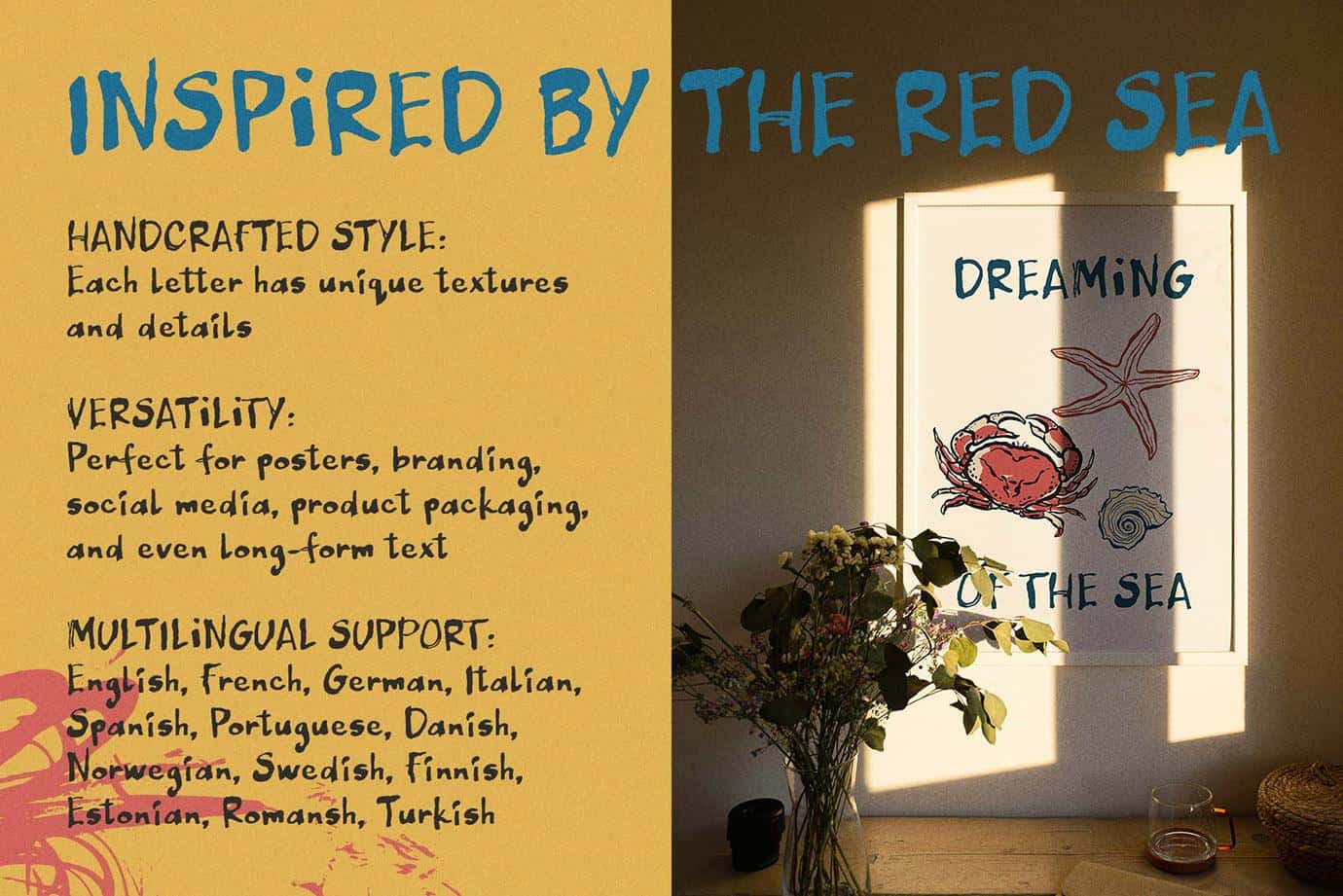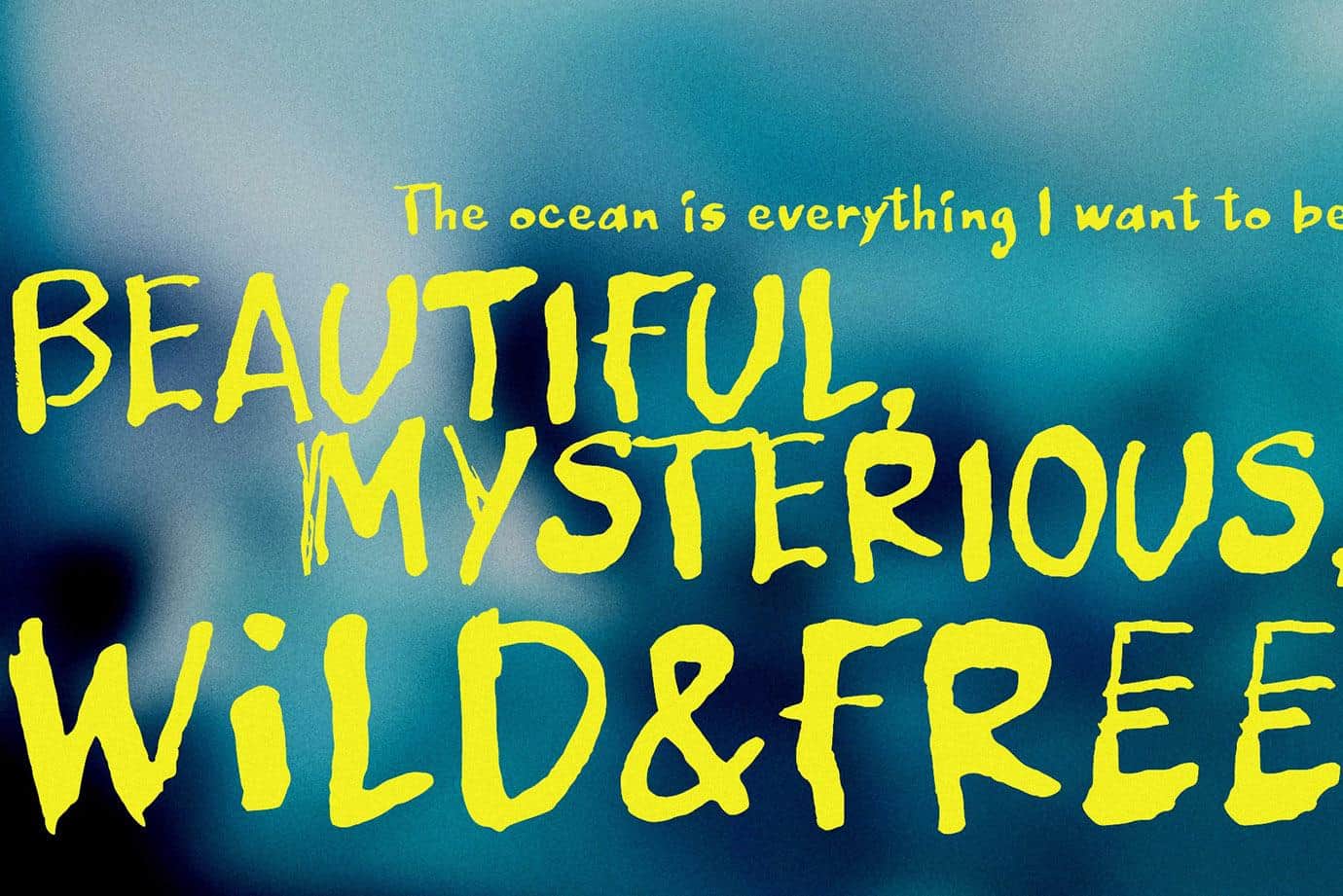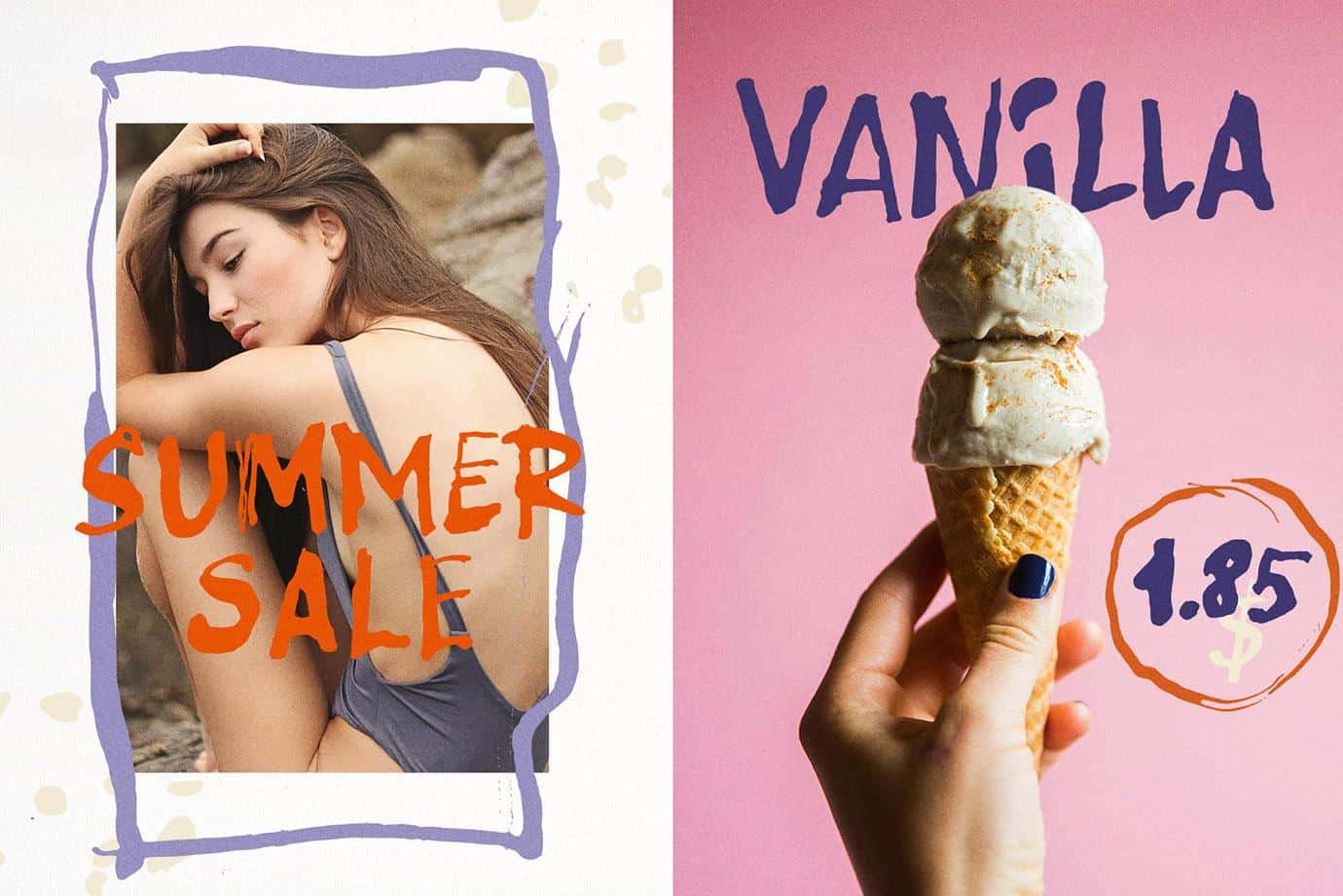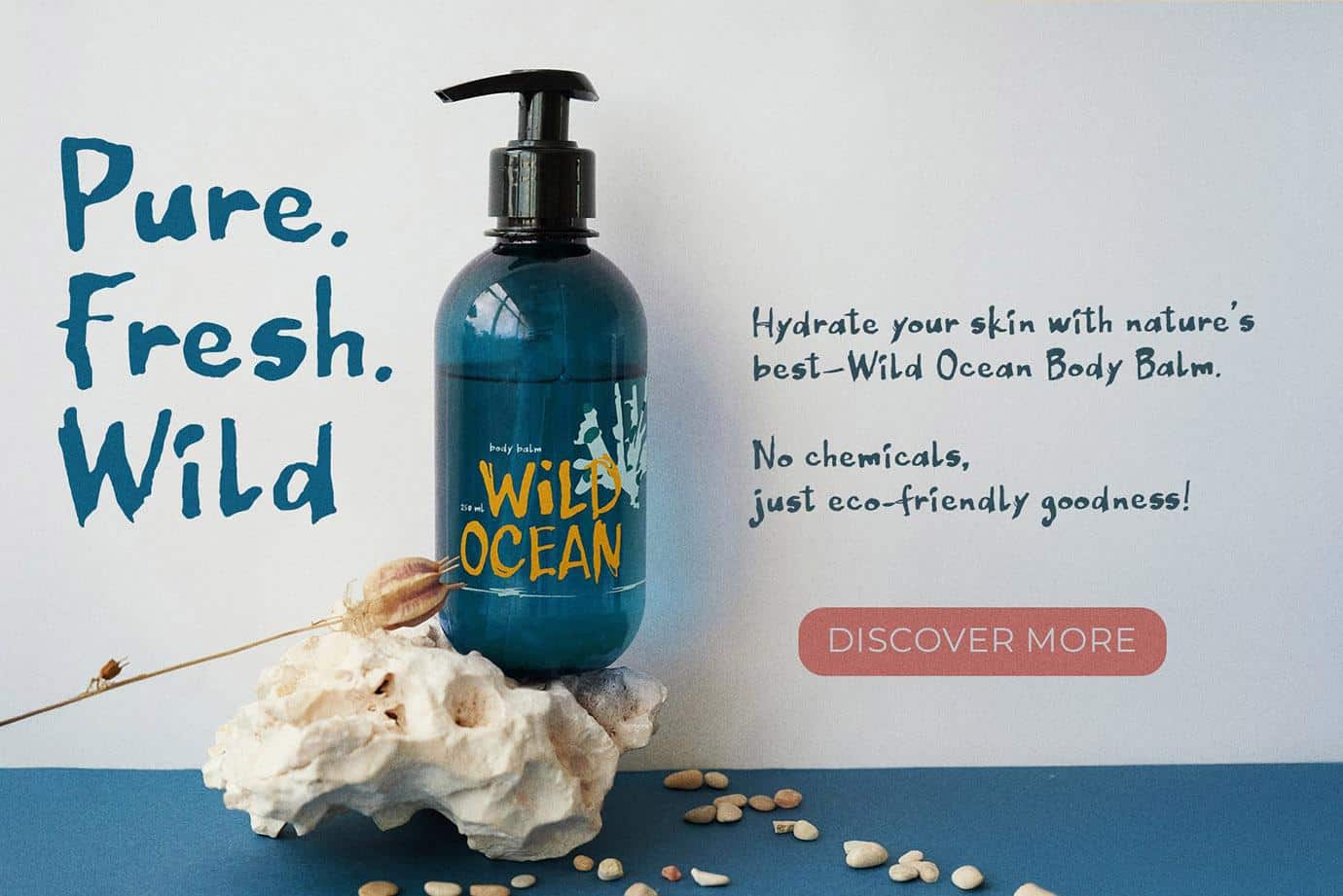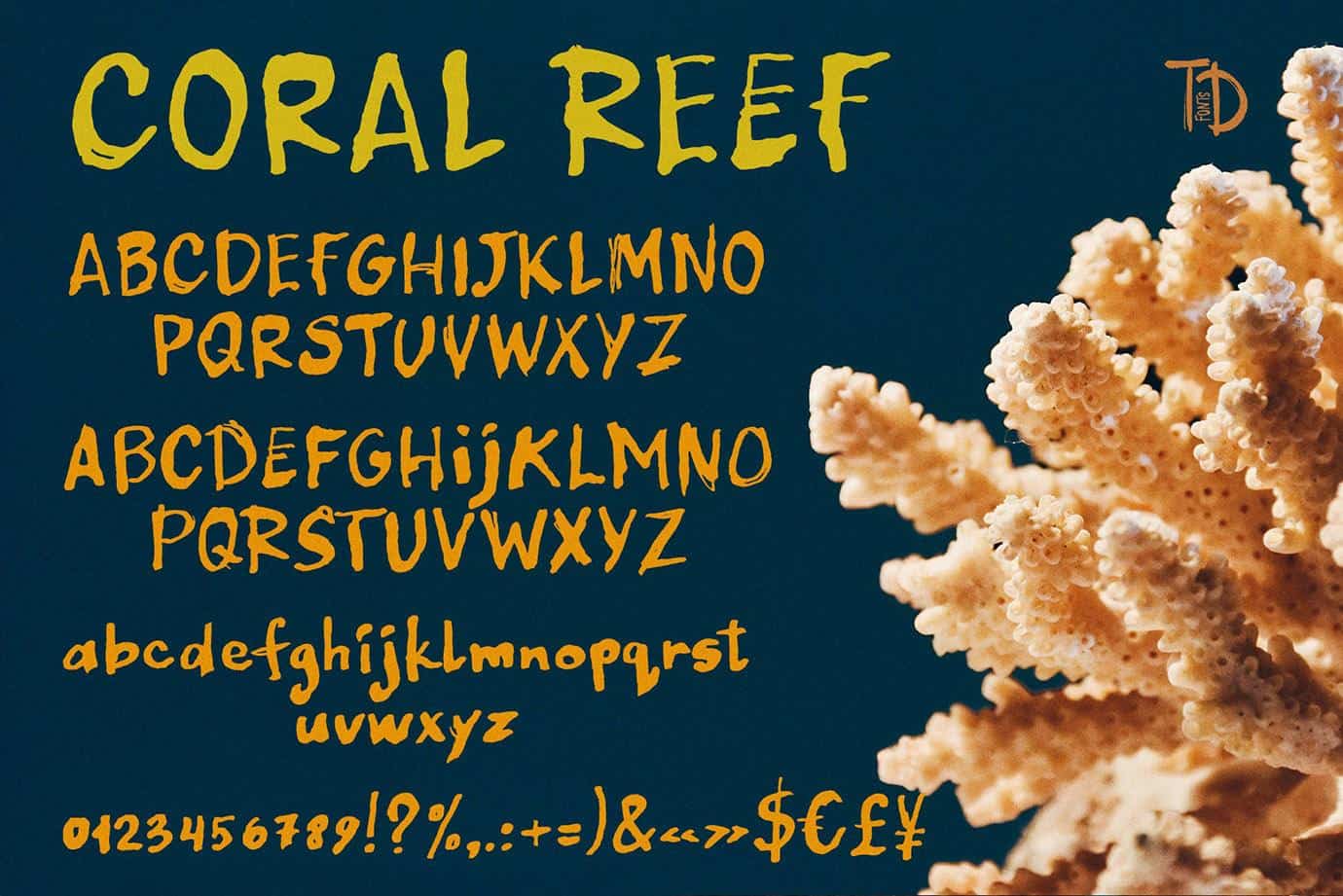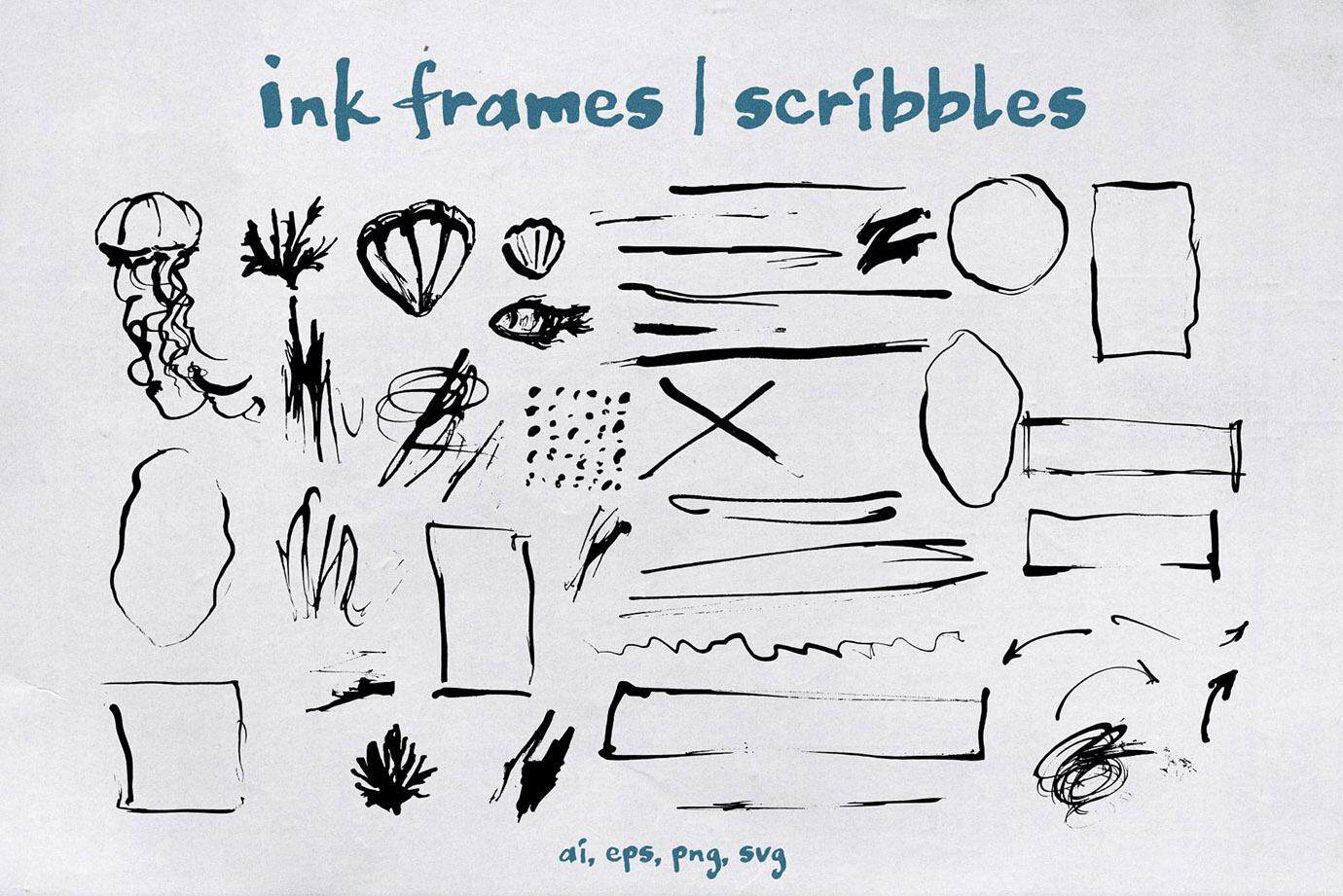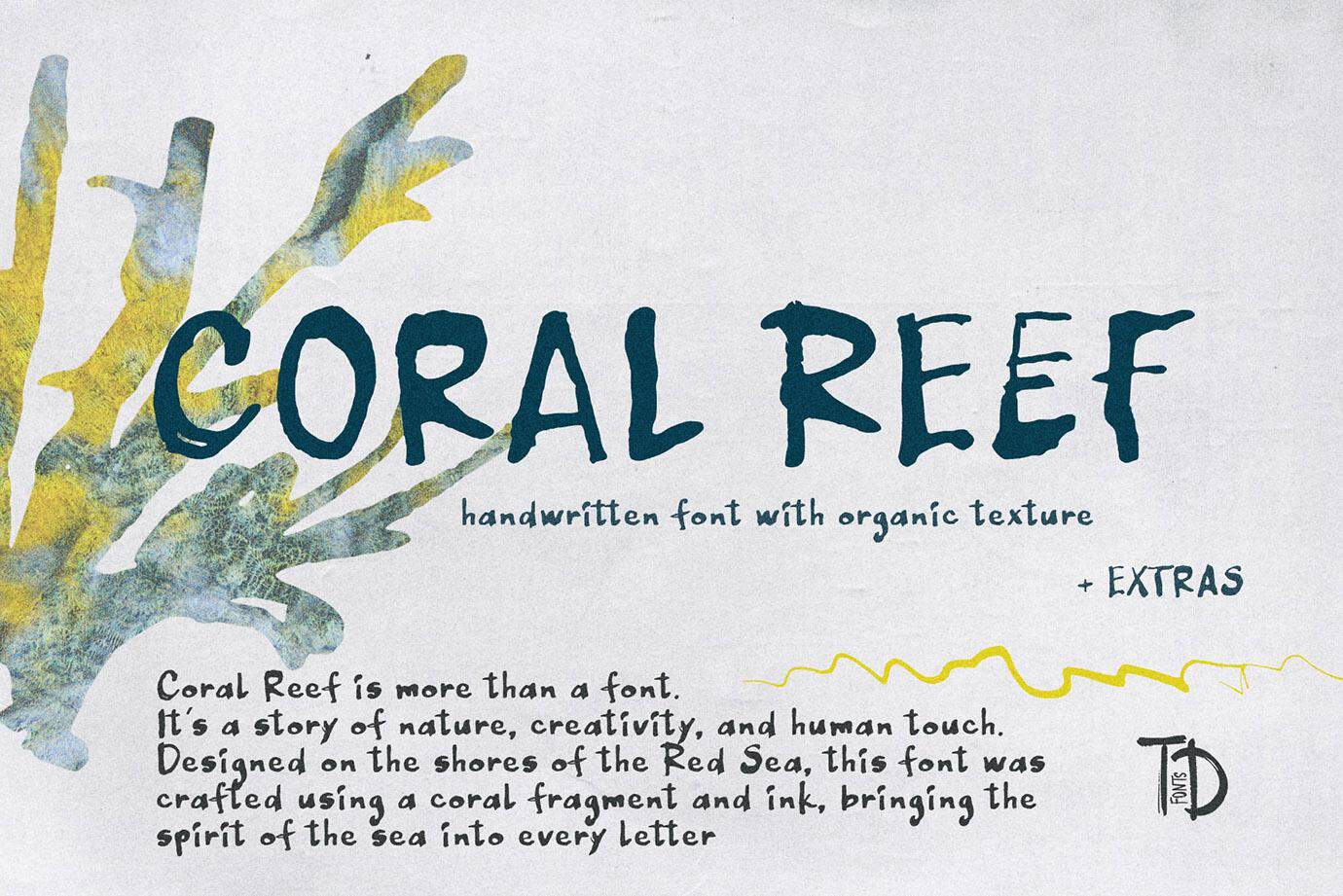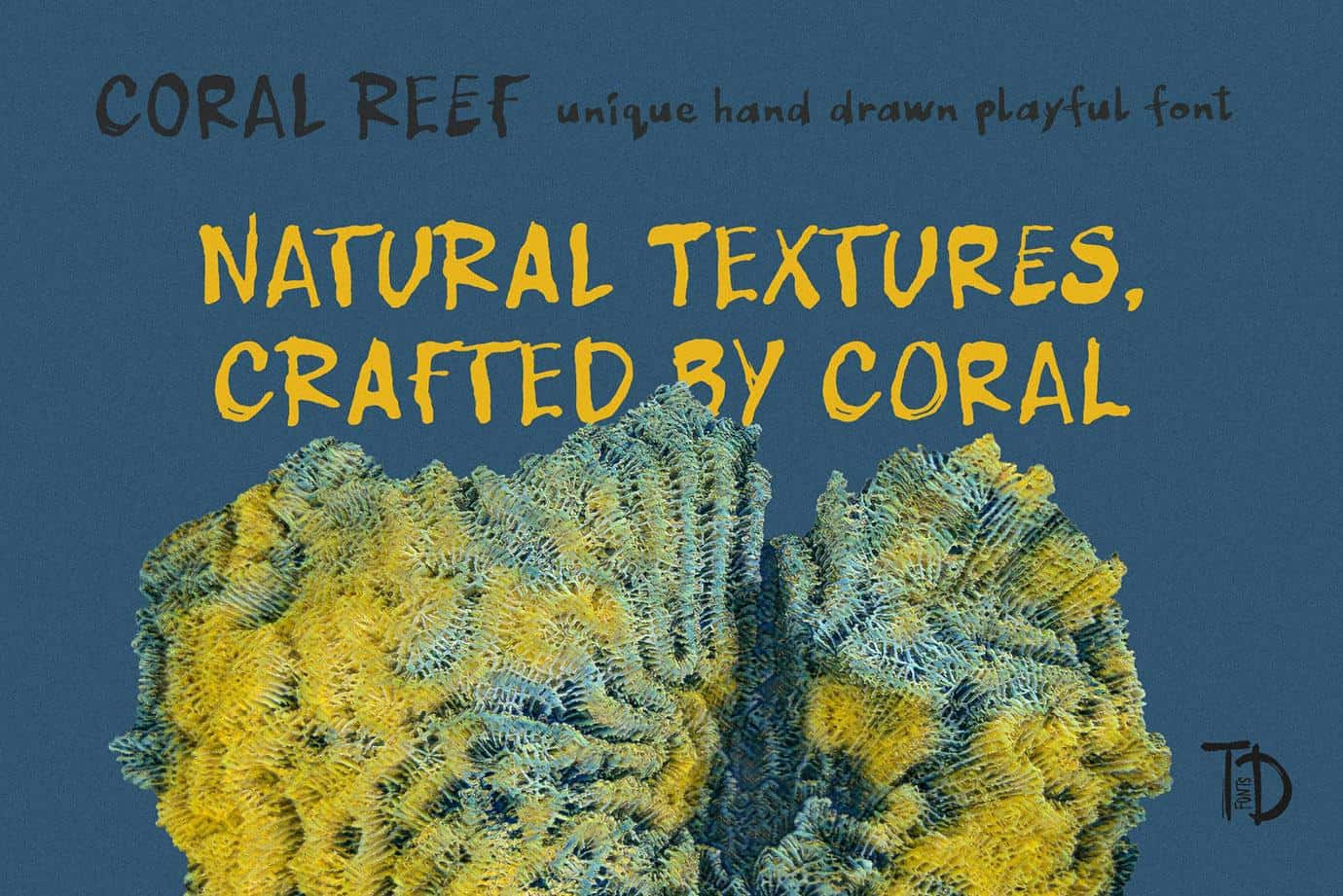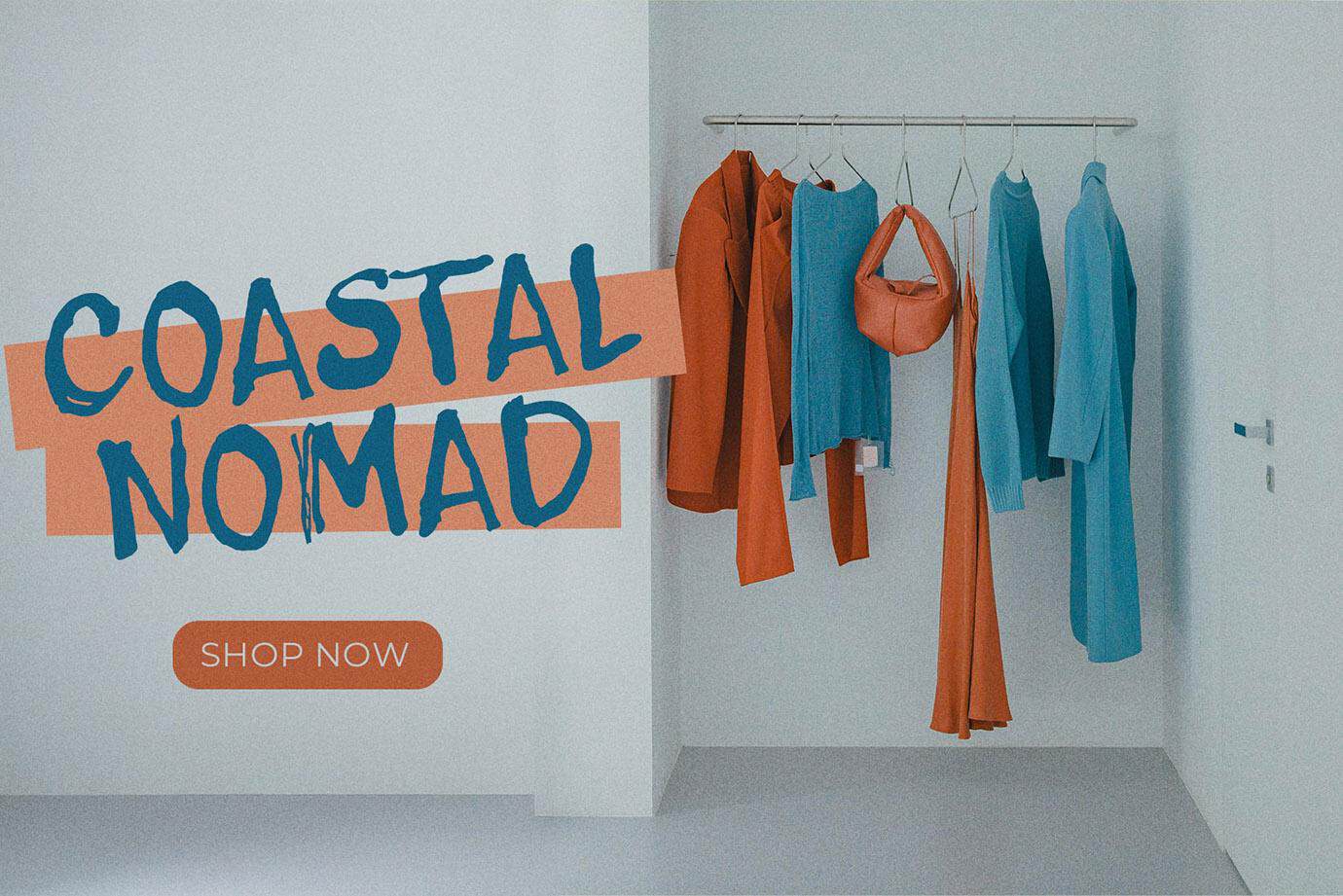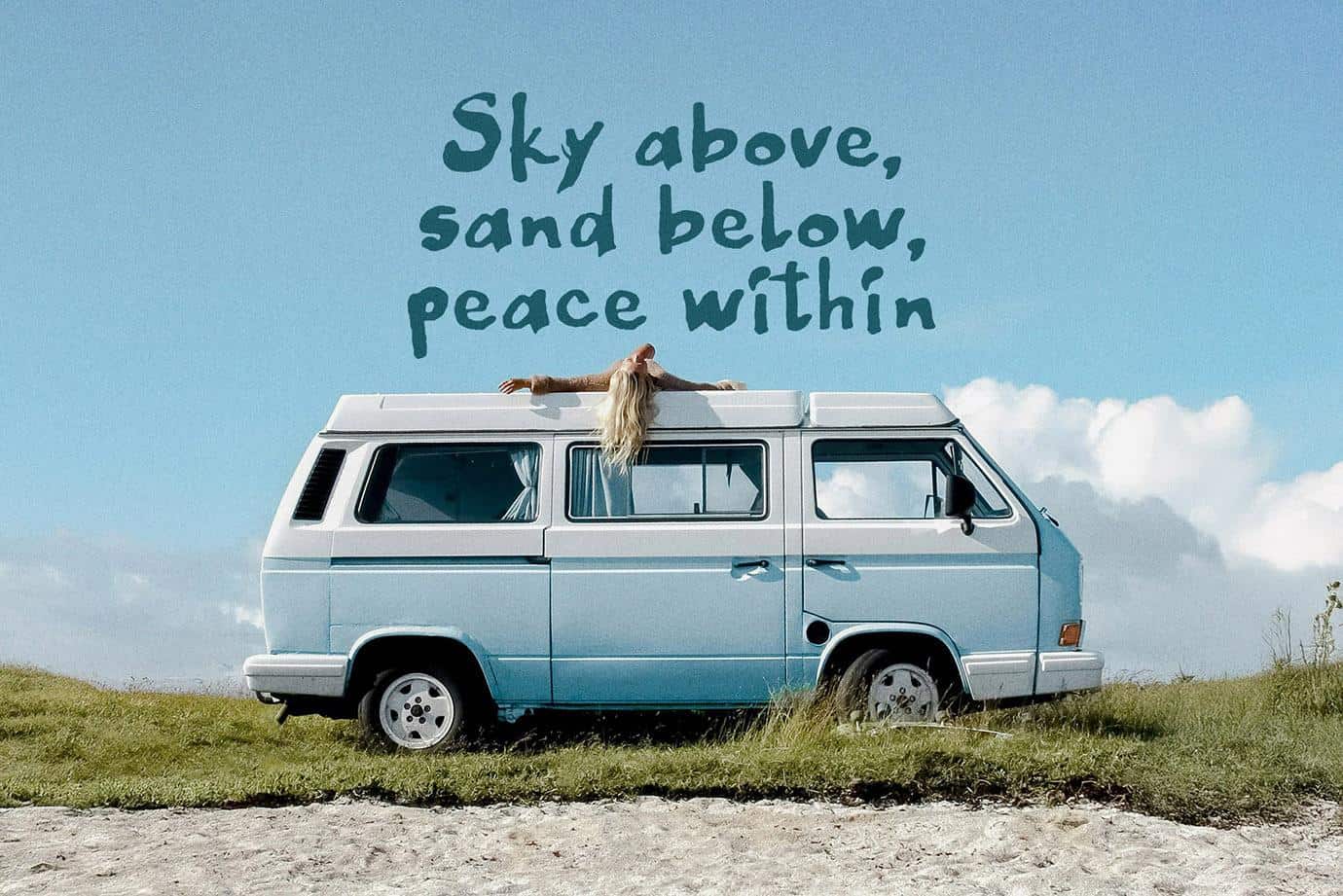
Coral reef Ink Handwriting font with organic ocean texture
Coral Reef is a handcrafted, ocean-inspired font designed to bring a natural, artistic touch to your projects
Coral Reef is a handcrafted, ocean-inspired font designed to bring a natural, artistic touch to your projects. Created using a real coral fragment from the shores of the Red Sea in Sharm El-Sheikh, this unique handwritten script font preserves the raw textures, scratches, and imperfections of coral—giving it an authentic, handcrafted feel.
Perfect for branding, packaging, posters, social media, and web design, Coral Reef is ideal for designers, small business owners, and creatives who want to add a boho, organic, or coastal aesthetic to their work. With multilingual support for extended Latin characters, it’s ready to make an impact on a global scale.
Why Choose Coral Reef?
Designed with real ink and coral, this font retains the warmth and personality of true handwriting. Its textured, handmade look makes it perfect for eco-conscious brands, artistic logos, and editorial design. Whether you’re crafting a modern, nature-inspired brand or a vintage-style design, Coral Reef adds depth, originality, and character.
Perfect For:
✔ Branding & logos – Unique, hand-drawn aesthetic
✔ Packaging design – Organic, artisanal feel
✔ Social media & marketing – Eye-catching typography
✔ Posters & book covers – Expressive & artistic touch
✔ Web & graphic design – Versatile & stylish